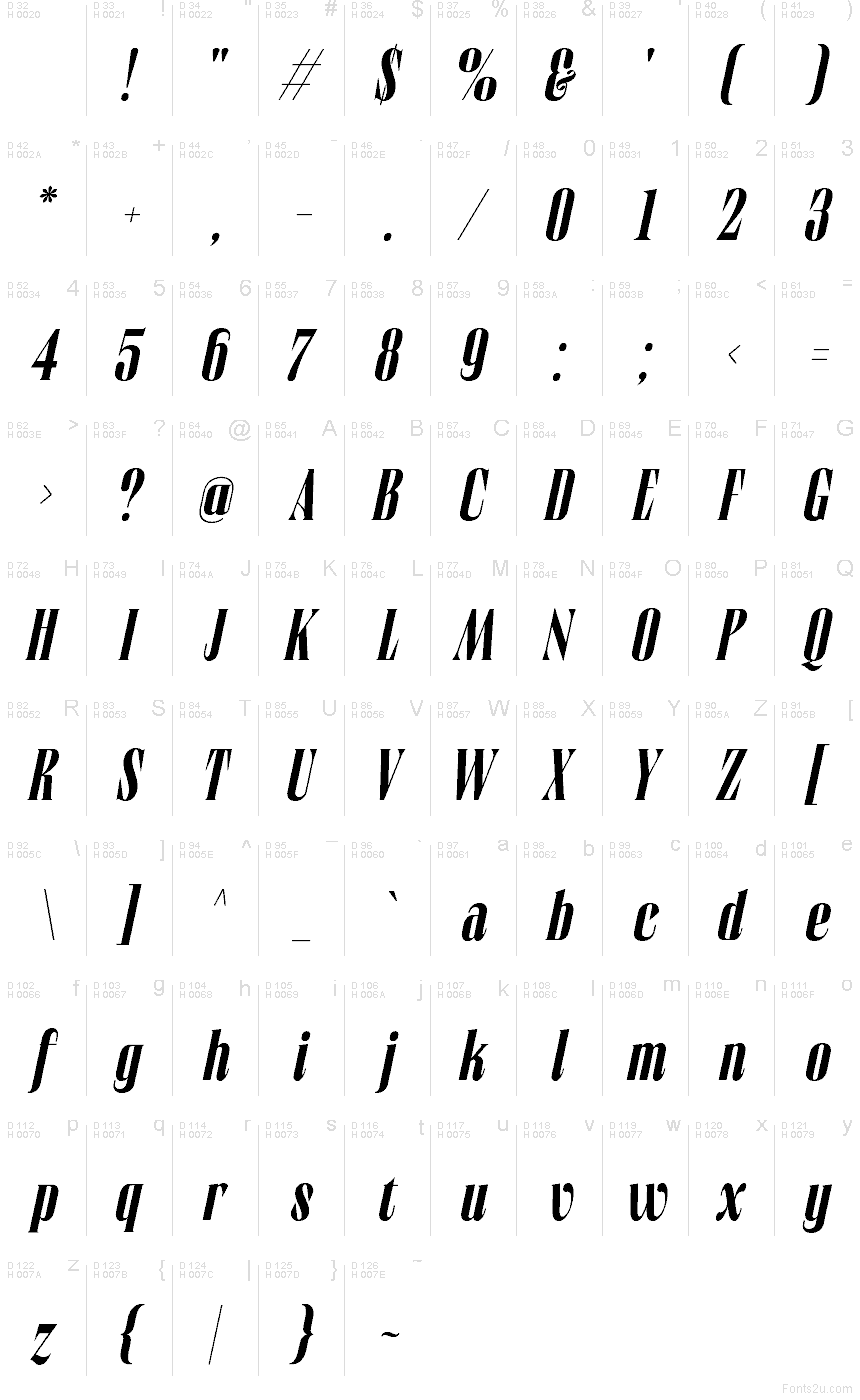
JHCAudemars-BoldItalic
JHC Audemars Bold Italic by Jehoo Creative is a free high-contrast italic serif with a clear fashion-editorial, Didone spirit. The letters lean hard and cut a sleek silhouette, pairing hairline joins with broad vertical stress and long, elegant curves that give even short words a glossy, magazine-cover rhythm.
It fits branding for beauty and jewelry, boutique packaging, poster headlines, mastheads, and title cards where that tall sweep can do the talking. As a free font, it makes sense for cover lines, wordmarks, and other brief display settings that need drama from contrast and movement rather than ornament.